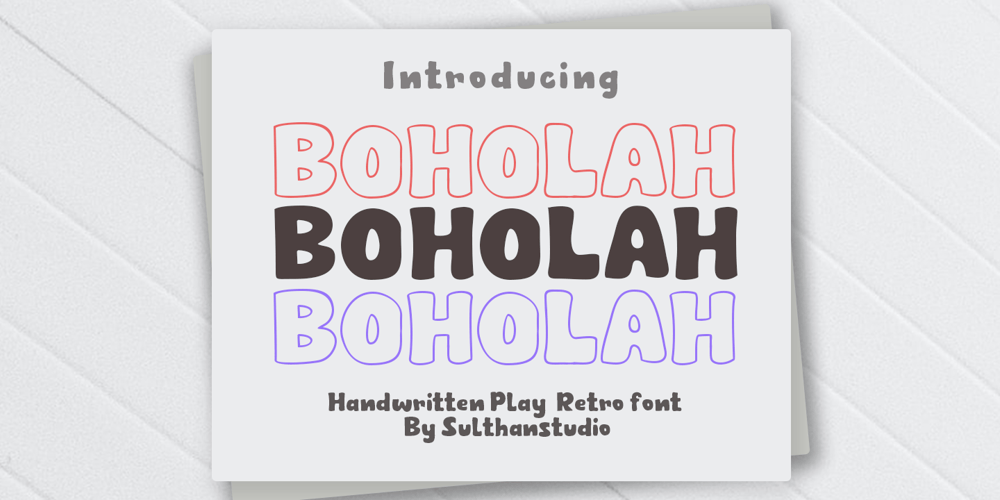
Boholah Font Family was designed by Nasrullah and published by Sulthan Studio. Boholah contains 2 styles and family package options. Old style fonts or also writing from teenagers, as a form of expression for those who are bored or looking for cool and creative ideas by drawing something accompanied by writing.